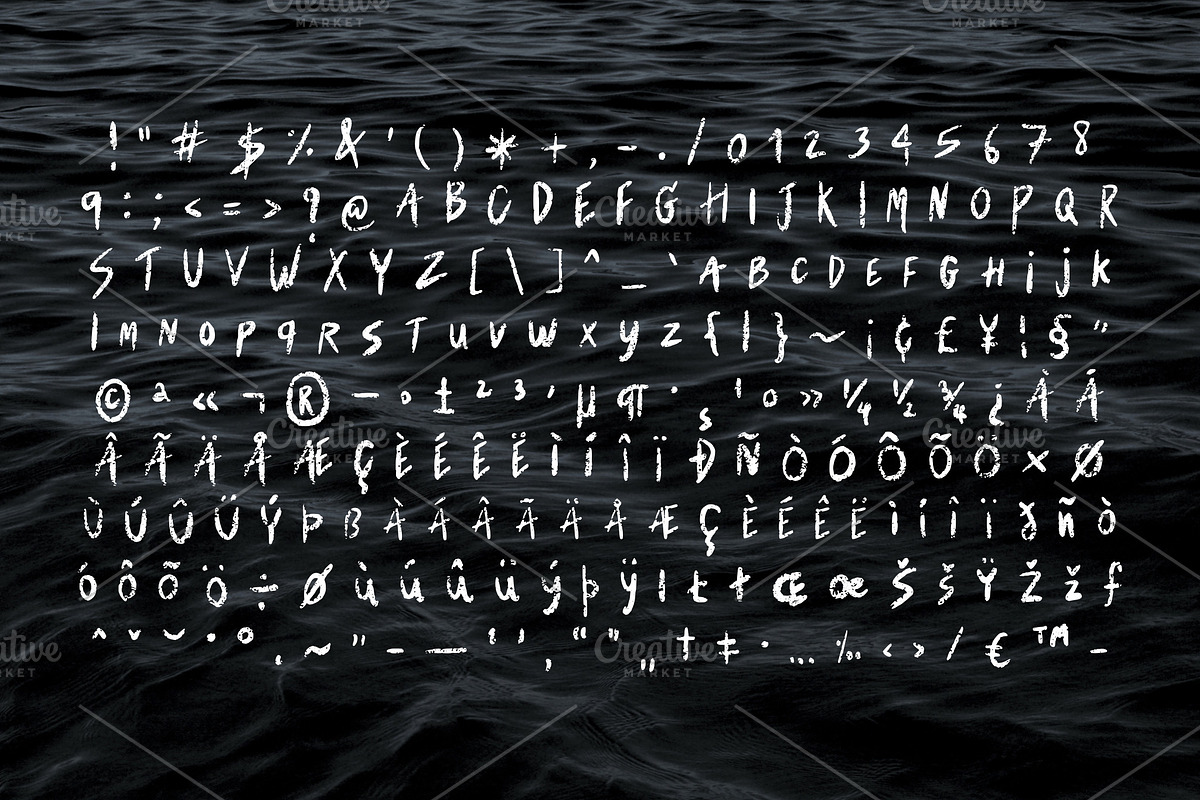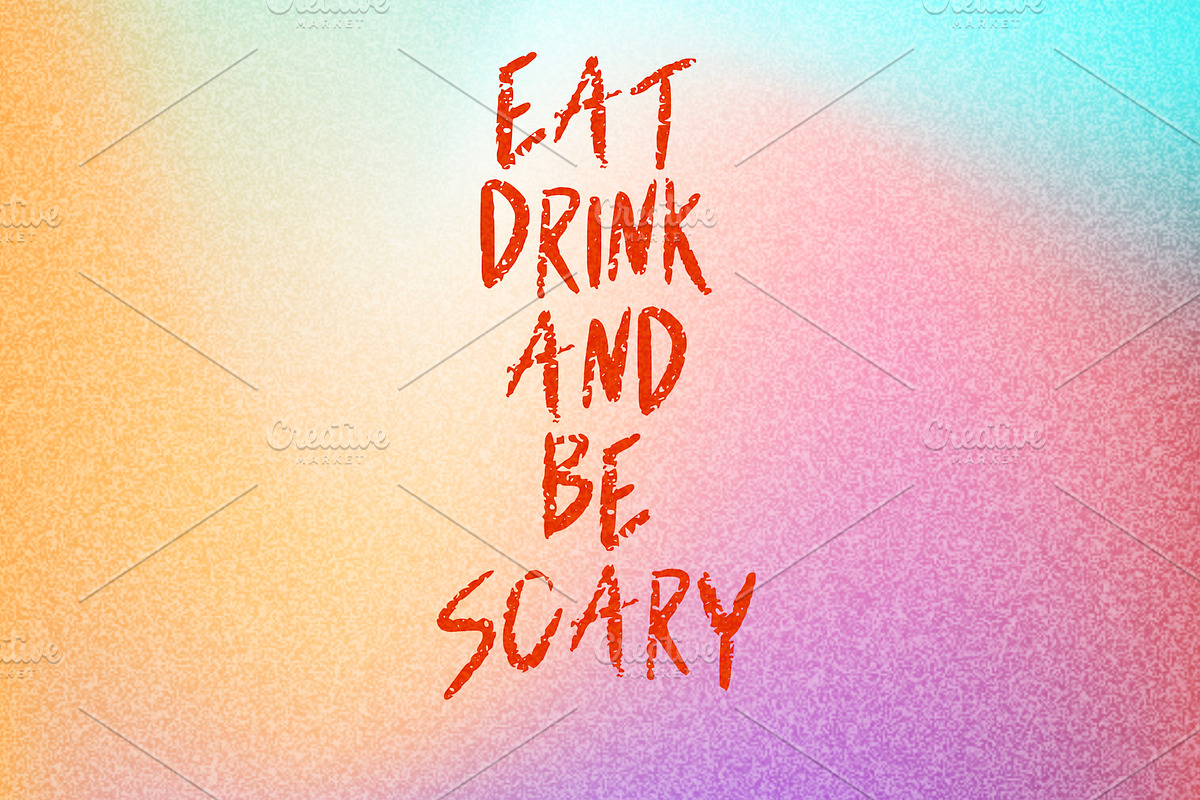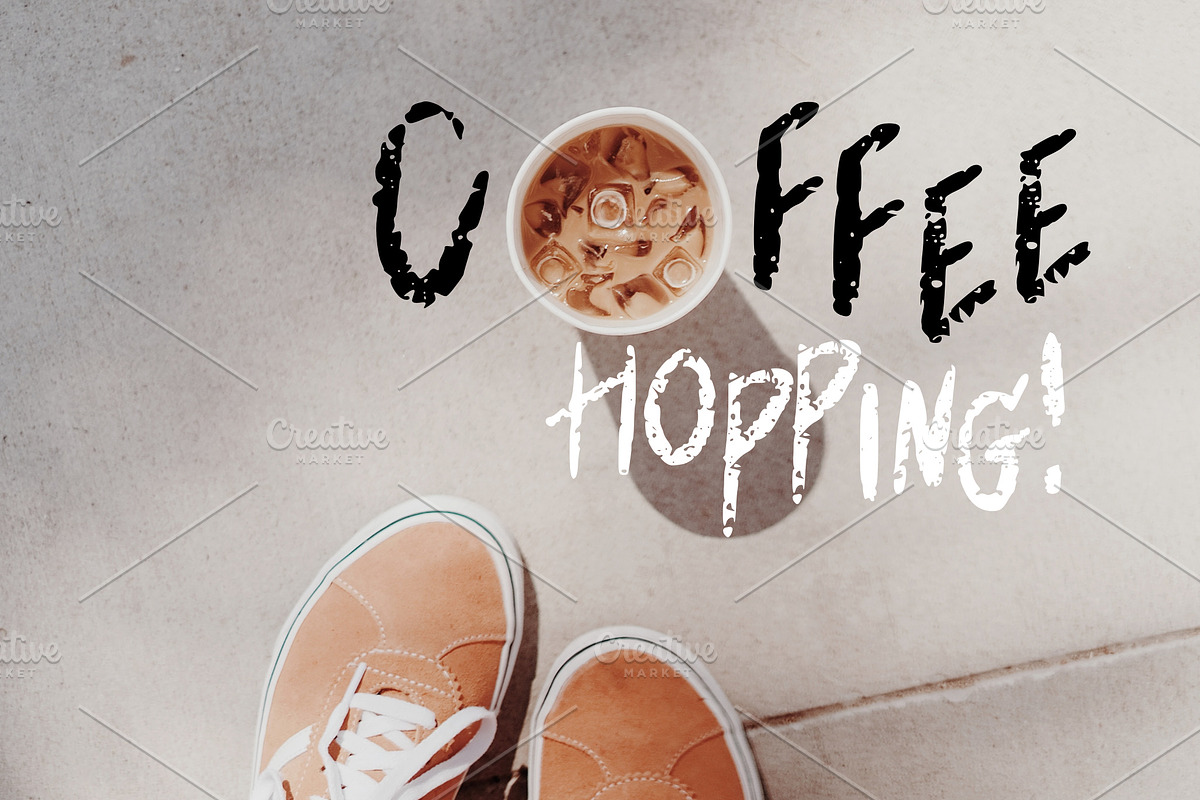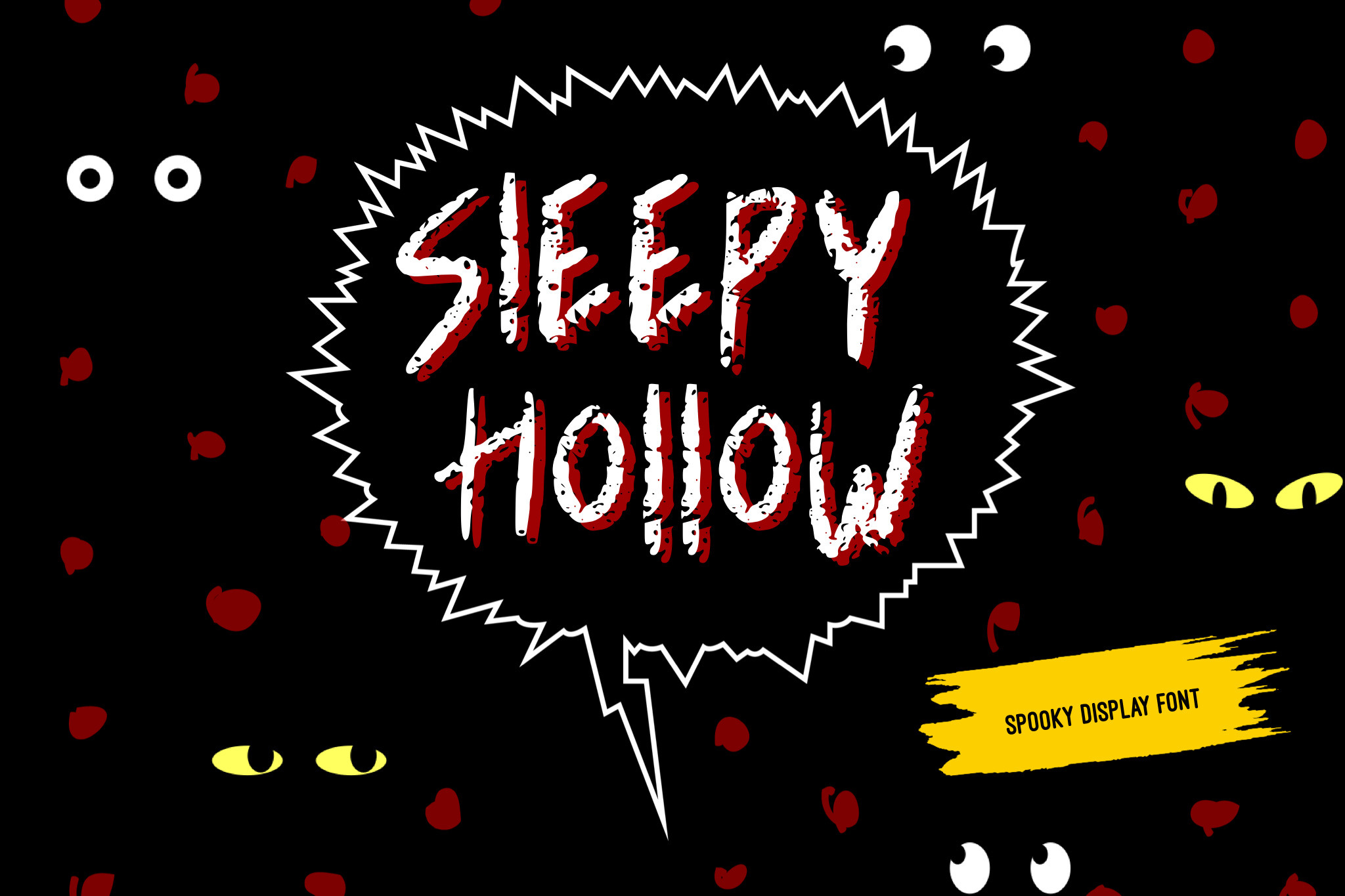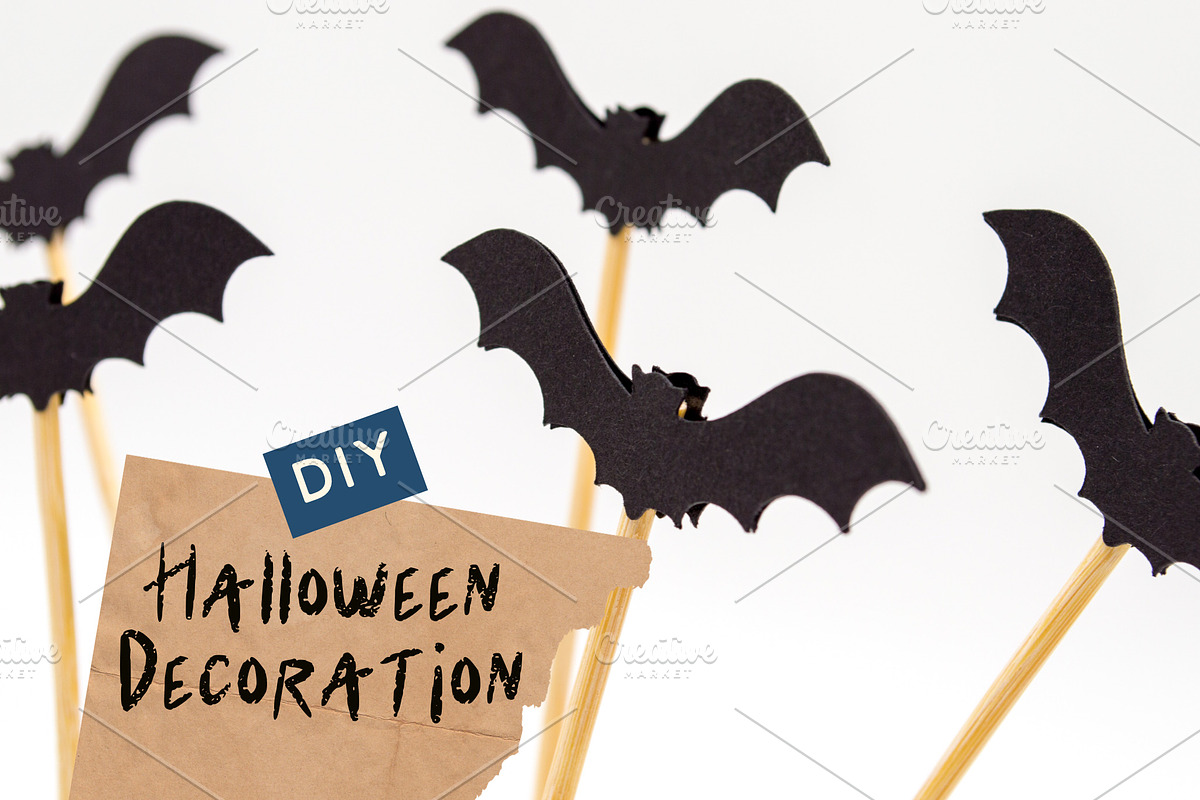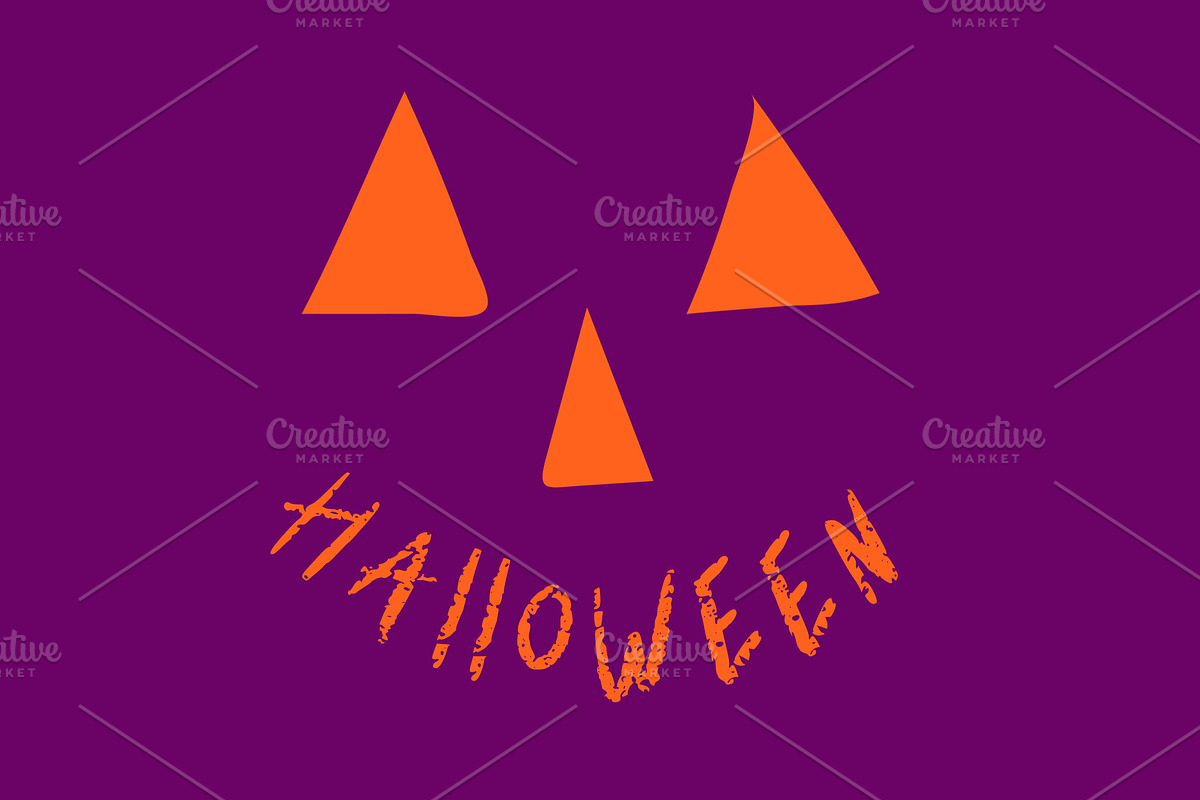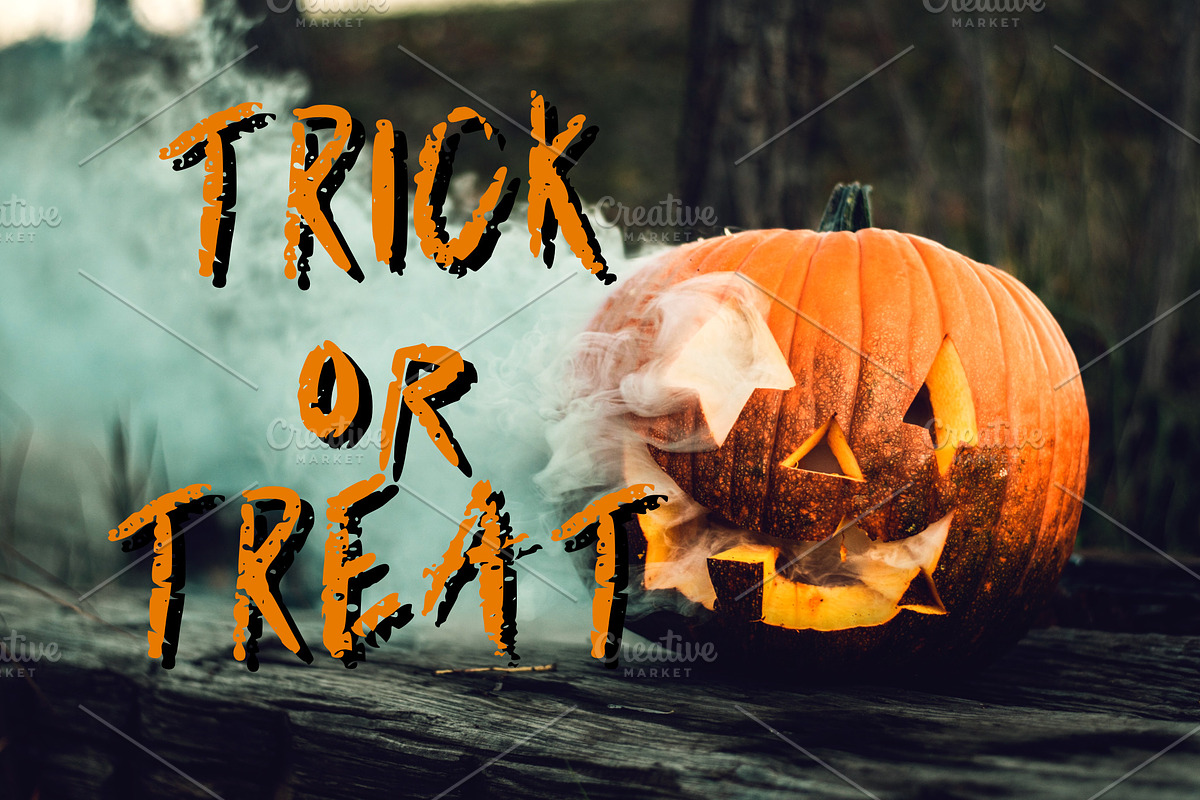
Sleepy Hollow Display Font
Sleepy Hollow is a playful and rough sponge texture display font. Perfect for Halloween holiday event, personal use, website, web header , banner, blog, craft projects, postcard, poster, invitations, labels, social media, Template design and many more.